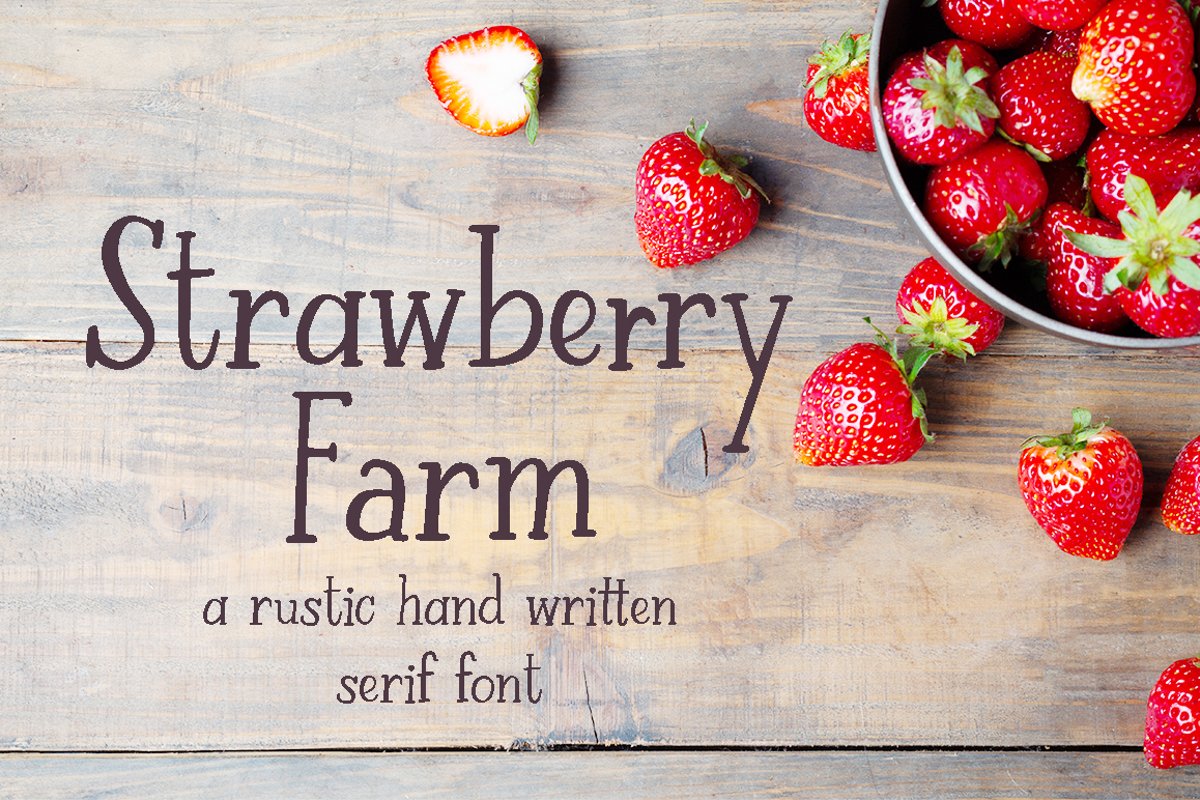
Strawberry Farm | A Serif Font
Strawberry Farm is the first ever serif font I have made and my first font in 2020.
I always wanted to design a serif/ san serif font that goes along with my product preview images. I wanted a font that has some hand written feel but clean and legible at the same time. Initially, I tried using my own hand writing but then the font would be a script font instead. And here it is! A serif font loosely based on my hand writing!⁠
This font would look good on invitations, cards, logo and maybe your next home decor project!
The font includes a set of UPPERCASE and lowercase letters with multilingual support.
It also includes numbers, punctuations, ligatures and stylistic alternates.